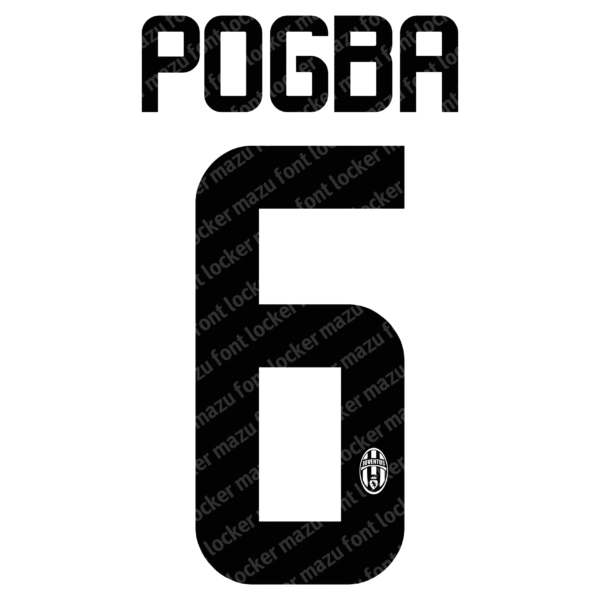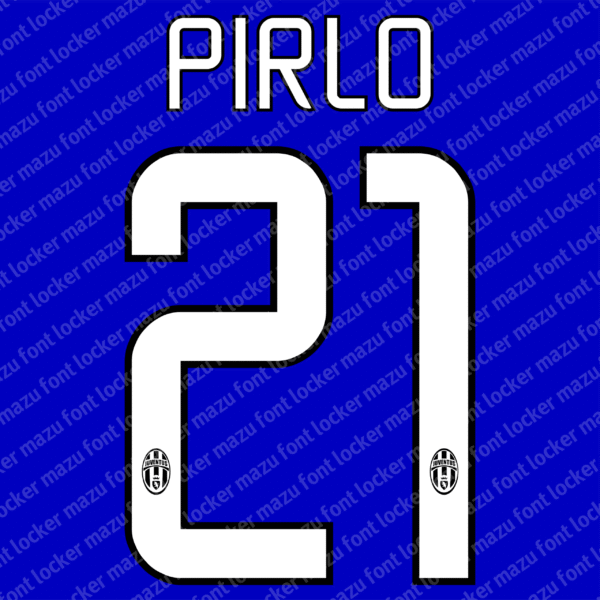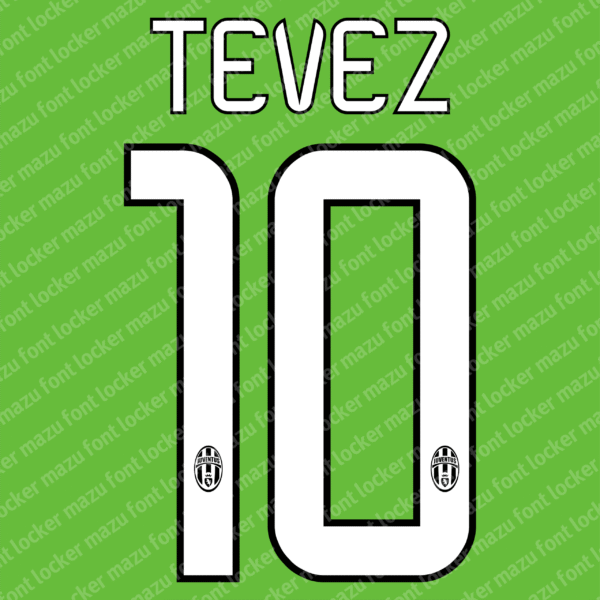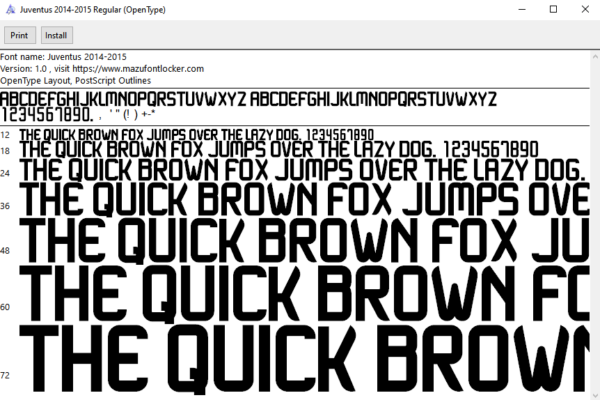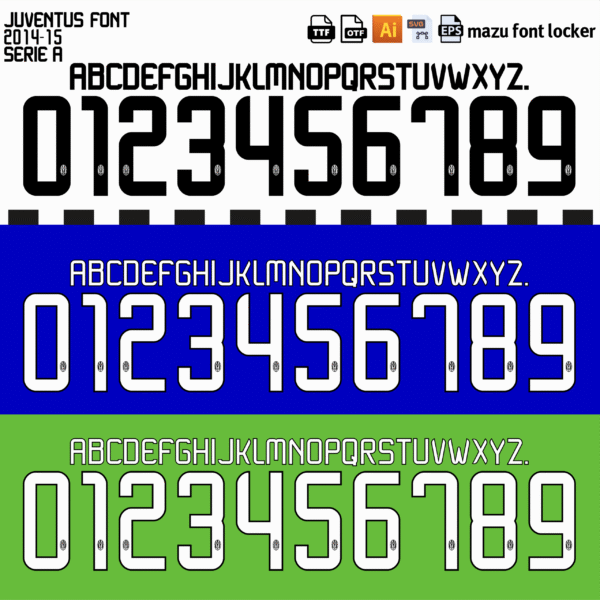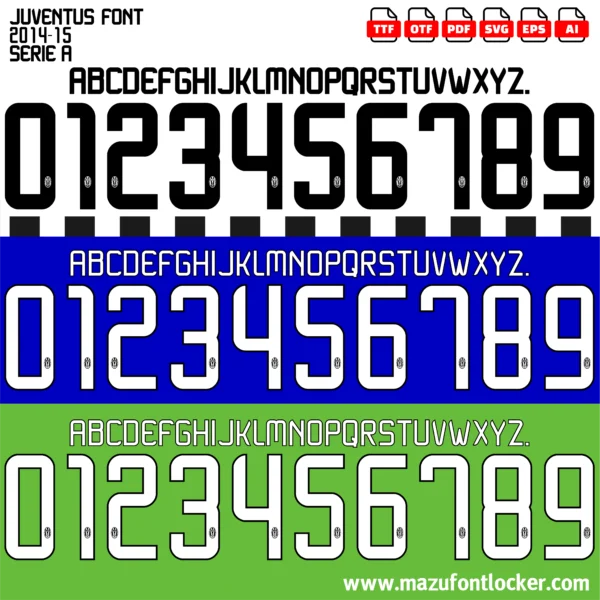
Juventus 2014-2015 Font Vector – Triumphant Bianconeri Masterpiece
The Juventus 2014-2015 Font faithfully recreates the clean and modern match-style lettering worn by Juventus throughout the 2014-2015 Serie A season. This font captures the bold yet refined typography from the first campaign under manager Massimiliano Allegri, as the Old Lady secured the Scudetto and reached the UEFA Champions League final. Perfect for authentic jersey mockups, premium fan merchandise, football editorial designs, social media graphics, and commemorative sports projects that celebrate the beginning of Juve’s dominant new era.
Juventus 2014-2015 Font Kit – Authentic Serie A Typeface
The Juventus 2014-2015 Font is a premium typeface that accurately recreates the official match lettering worn by Juventus during the 2014/2015 Serie A season. This high-quality font kit captures the bold, modern, and clean typography that marked the beginning of the Massimiliano Allegri era and the club’s return to dominance.
Designed for professional designers and passionate Juventus fans, the Juventus 2014-2015 Font delivers perfect authenticity for creating retro jersey mockups, fan merchandise, matchday posters, social media graphics, and much more. It blends beautifully with the club’s iconic black-and-white striped kits from that successful season.
Why Choose Juventus 2014-2015 Font
This font stands out because of its sharp details and strong modern presence. Every letter and number is crafted to match the exact style used on the players’ shirts during the 2014-2015 season. Whether you are making vintage shirt templates or nostalgic football content, the Juventus 2014-2015 Font gives your designs that authentic Serie A look from this memorable campaign.
The letterforms in the Juventus 2014-2015 Font are tall, bold, and highly readable. The strokes have a balanced weight that looks powerful and professional on the back of jerseys while maintaining excellent clarity and a contemporary feel.
The numerals use solid curves and firm edges, giving them a confident and premium appearance. This design ensures great legibility whether used in large print formats, digital mockups, or retro video content.
• Full uppercase A–Z and numbers 0–9 in authentic Juventus 2014-2015 style
• Special Juventus logo glyph for accurate shirt number detailing
• Includes the exact logo glyph placement used under player numbers
Juventus in the 2014/2015 Season
The 2014/2015 season was a historic turning point for Juventus as they won Serie A under new manager Massimiliano Allegri. With star players such as Andrea Pirlo, Paul Pogba, Arturo Vidal, Giorgio Chiellini, Gianluigi Buffon, Carlos Tevez, and Álvaro Morata, the team played attractive football and secured the Scudetto convincingly. The kits from this era remain very popular among fans. For more historical information, visit the official Juventus website.